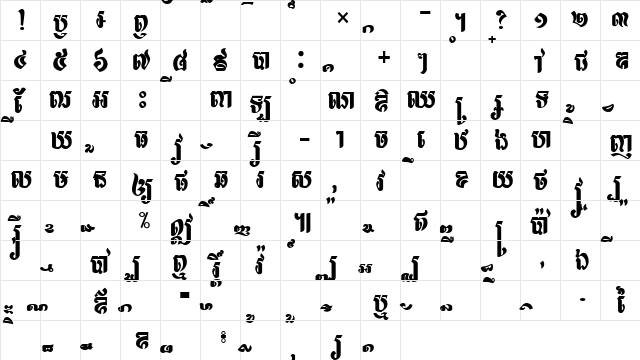
Lumphat New Normal
Design Context for Lumphat New Typeface
Lumphat New offers clean, dependable letterforms without strong stylistic allegiance, making it a practical choice for designers who need flexibility.